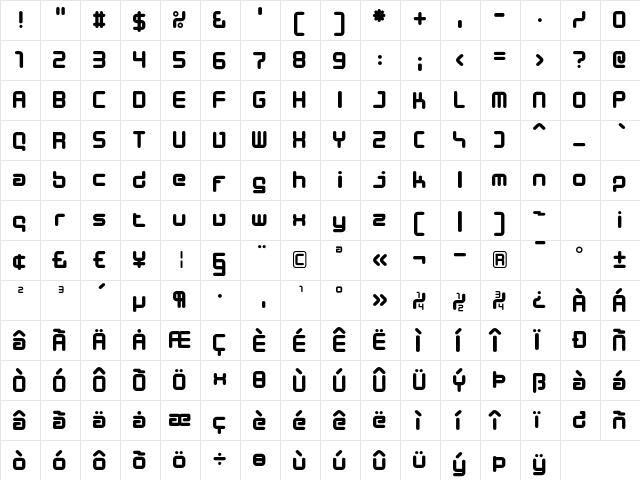
Designer Block Regular
Design Context for Designer Block Typeface
Designer Block offers clean, dependable letterforms without strong stylistic allegiance, making it a practical choice for designers who need flexibility.
Pro Tip: Use Designer Block in both headline and body roles to test its range before committing to a single application.